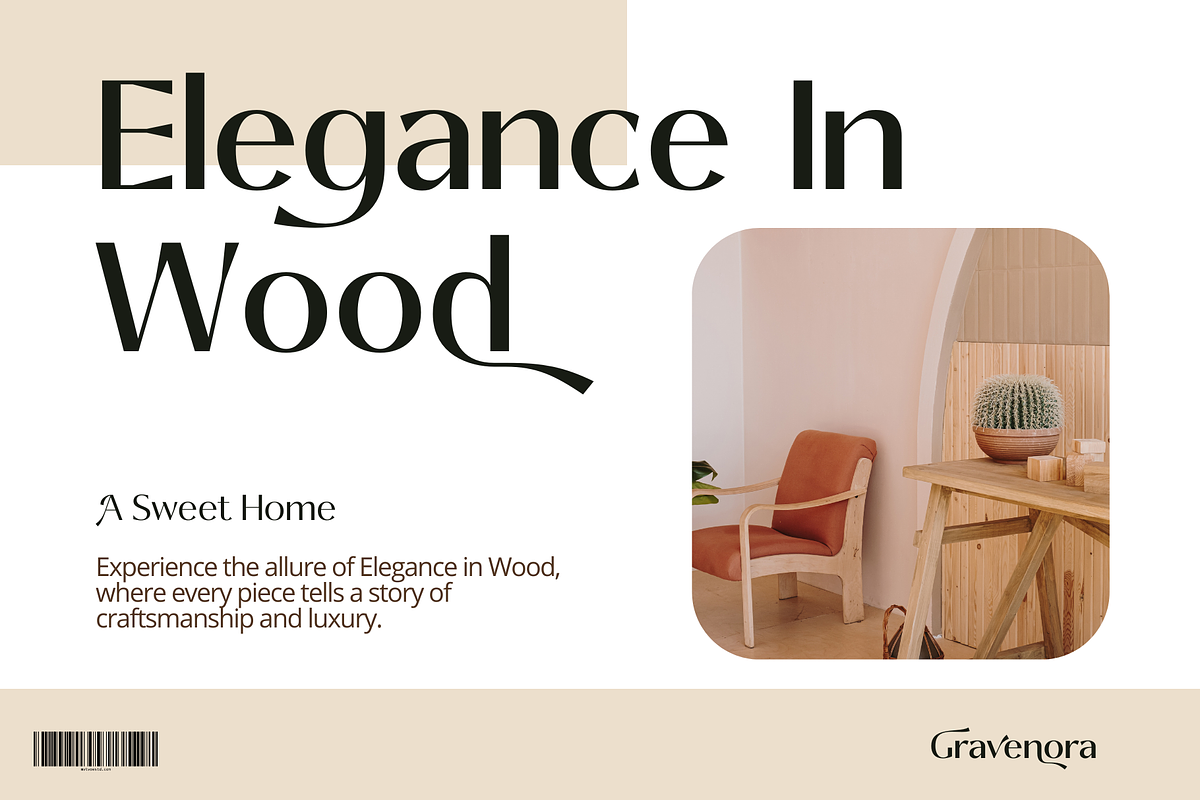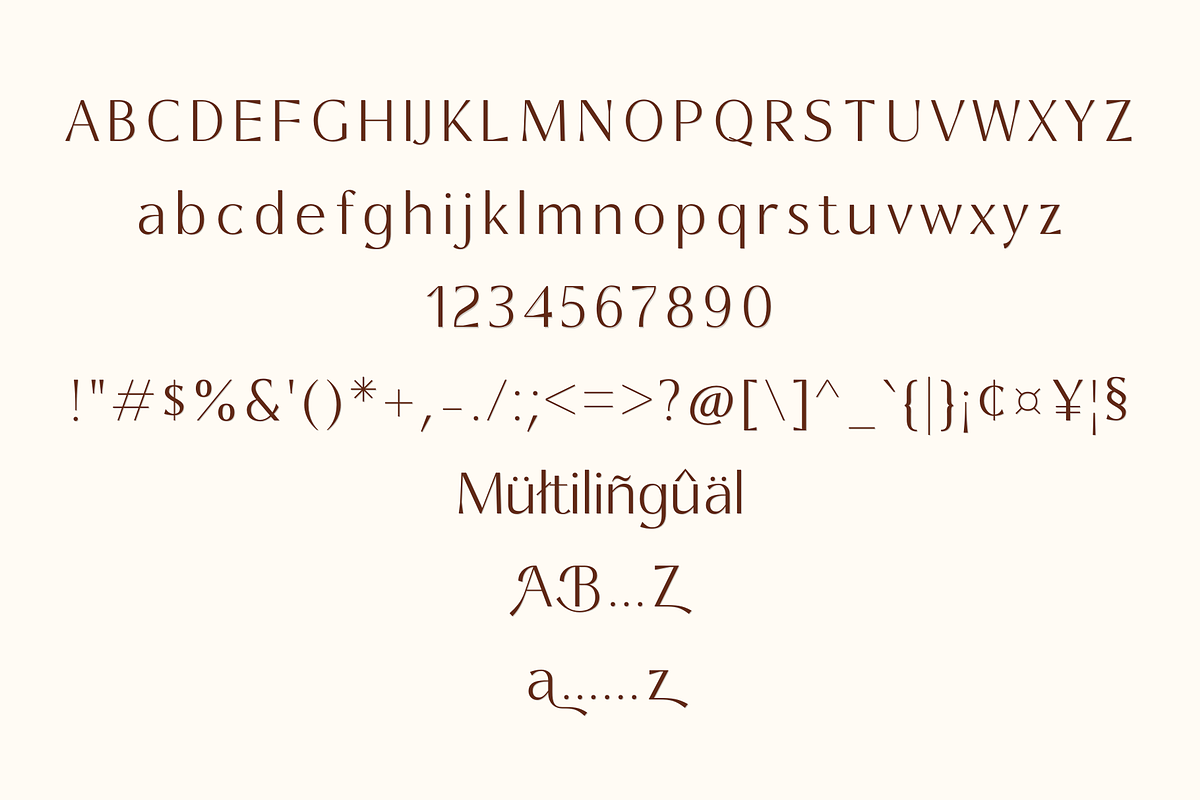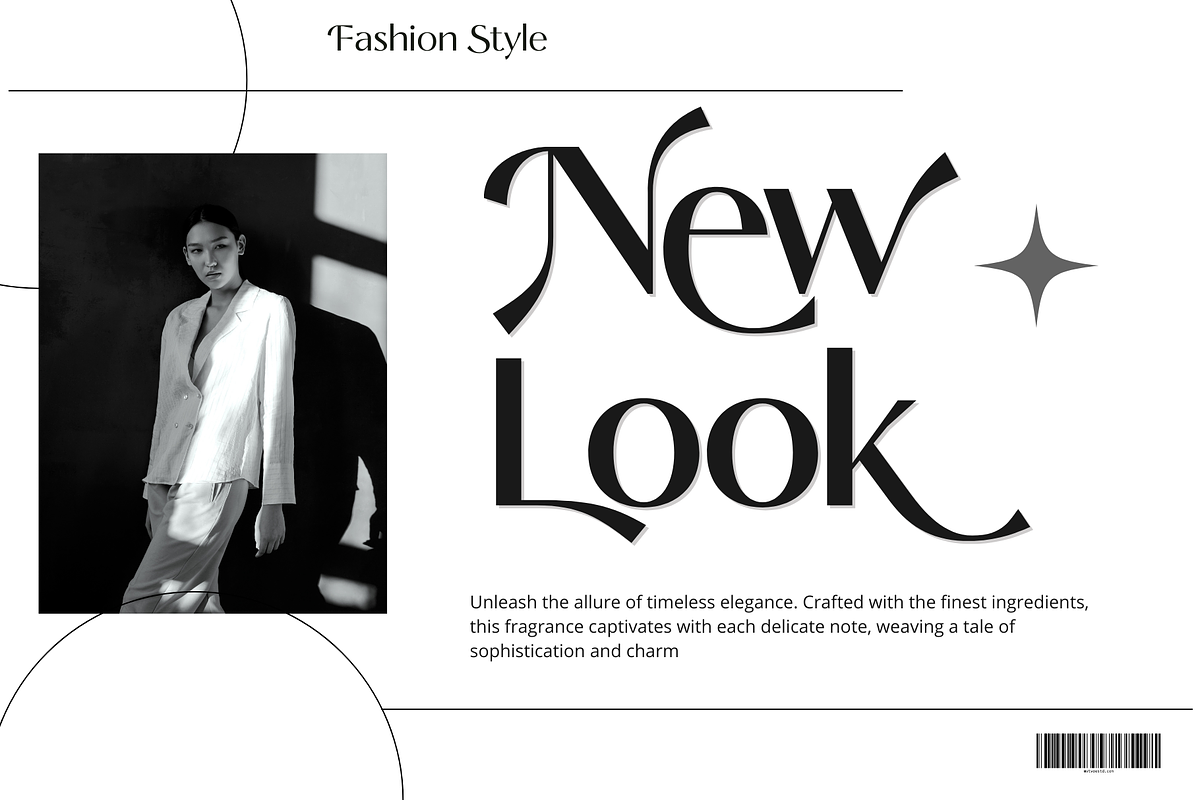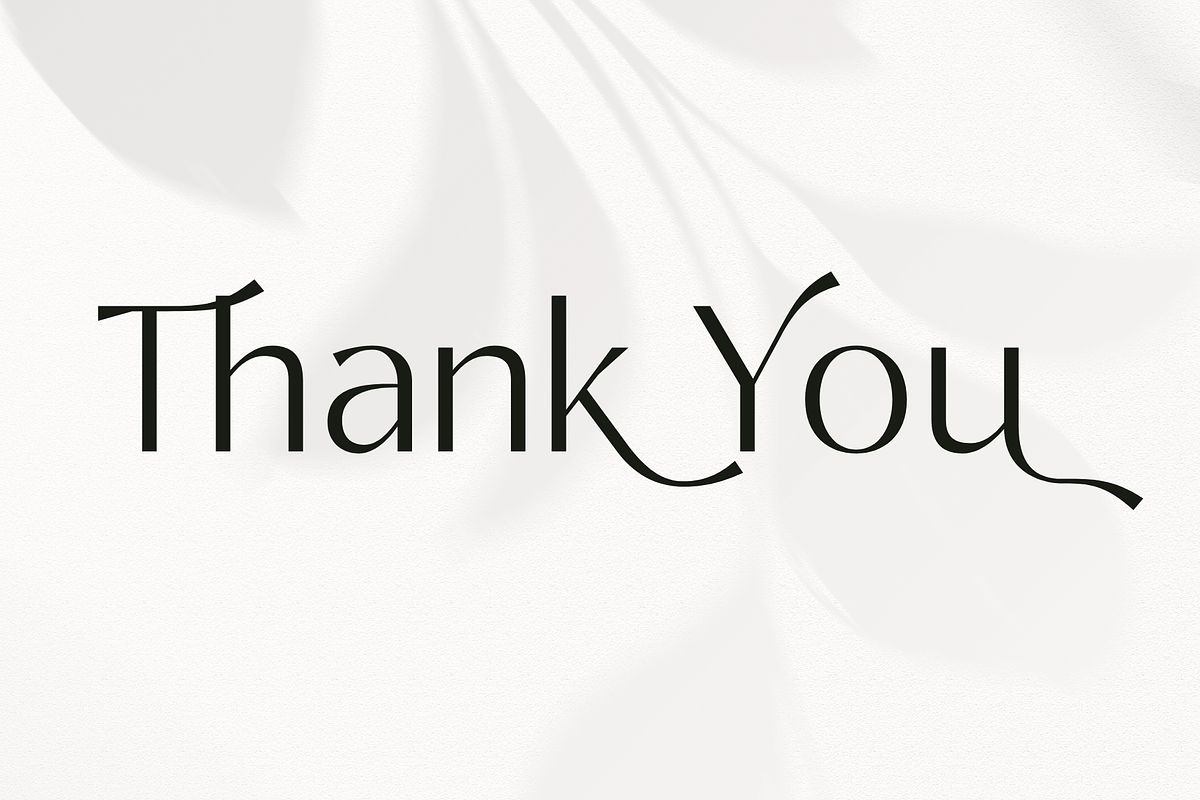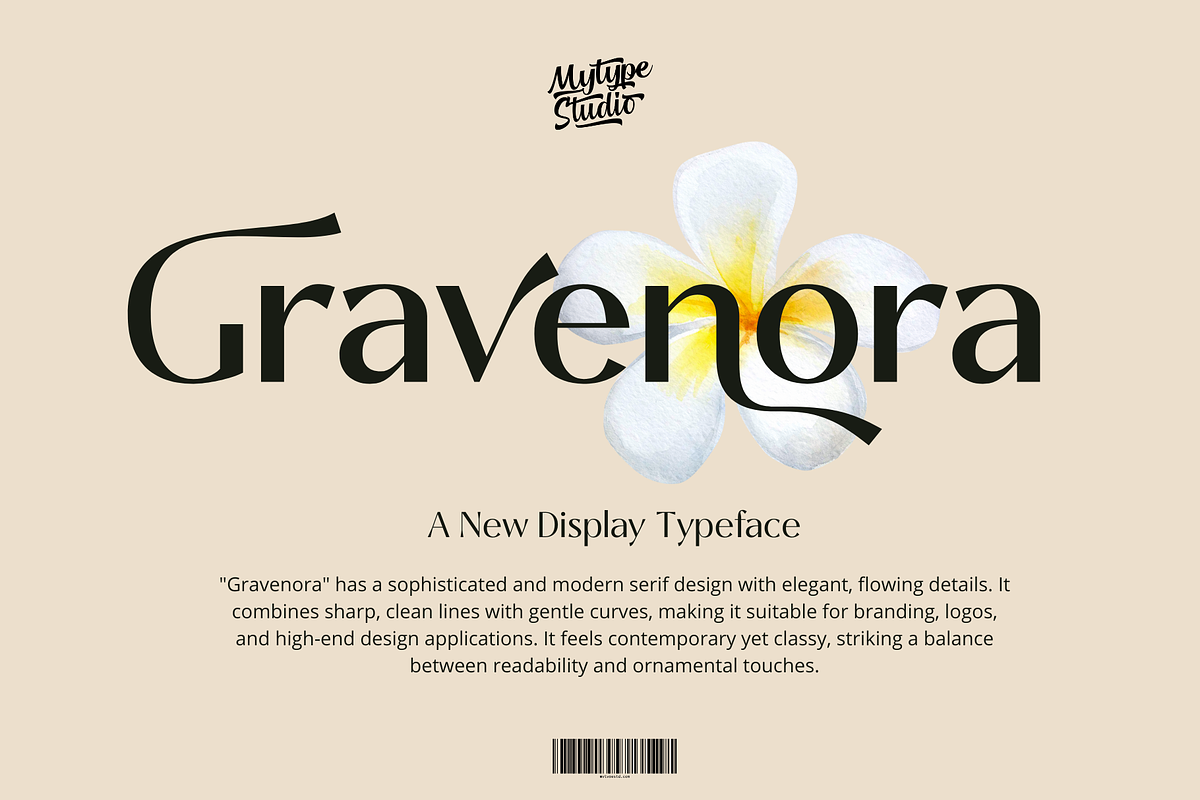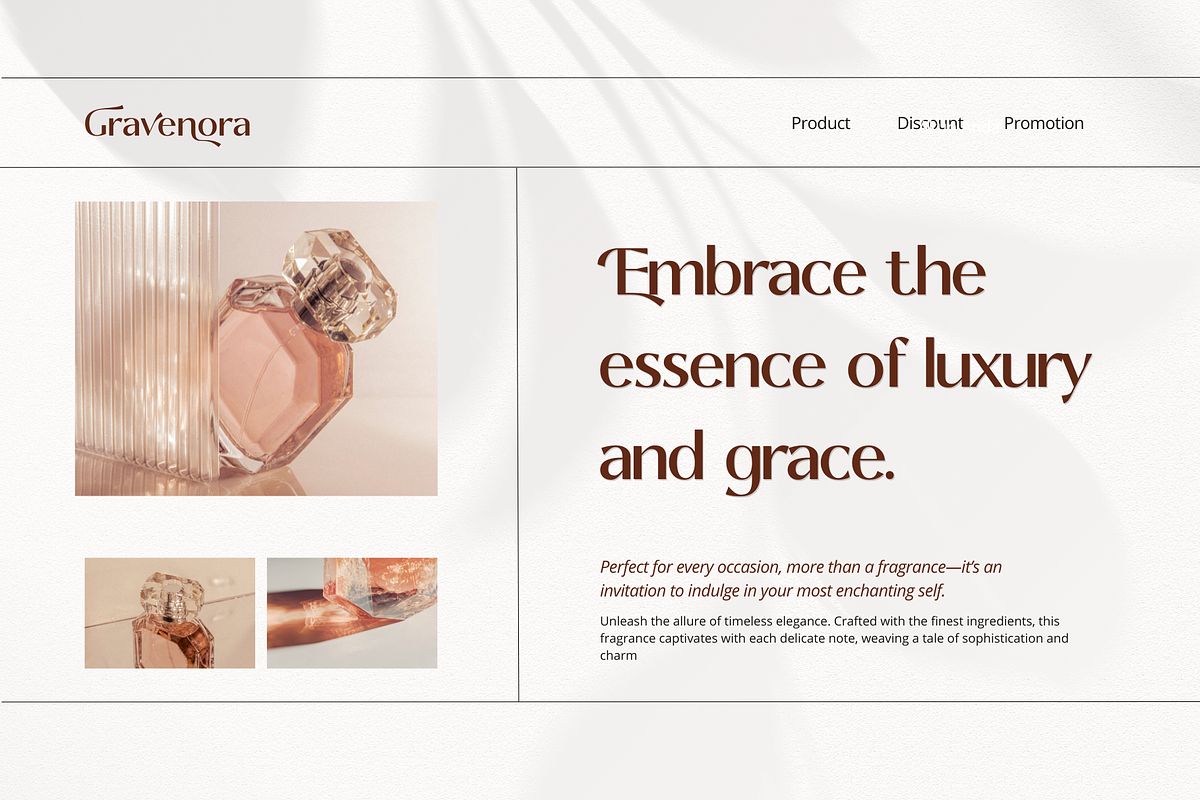
Gravenora – Elegant Font
Unlock a new level of sophistication with Gravenora, a beautifully crafted serif font that merges timeless elegance with contemporary style. Perfectly suited for branding, logos, invitations, and high-end editorial design, Gravenora brings a sense of luxury to every project.
Distinctive Character: The graceful curves and unique flourishes give your text a refined, creative edge. Versatile Appeal: Whether you're working on branding, fashion, or upscale products, Gravenora adapts effortlessly. Premium Quality: Designed with precision, it offers perfect balance between beauty and readability, ensuring a lasting impression. Elevate your designs with Gravenora—where sophistication comes to life.